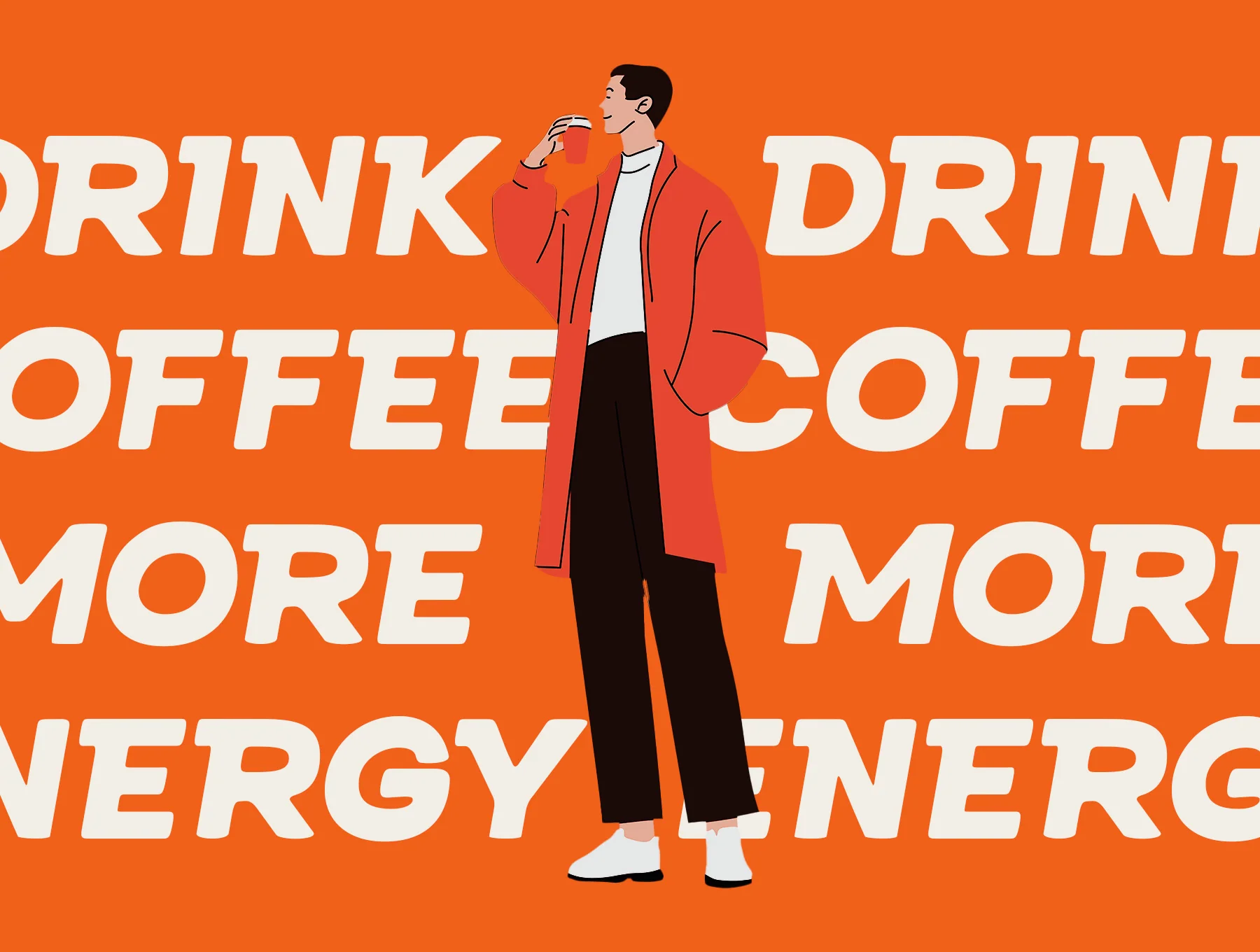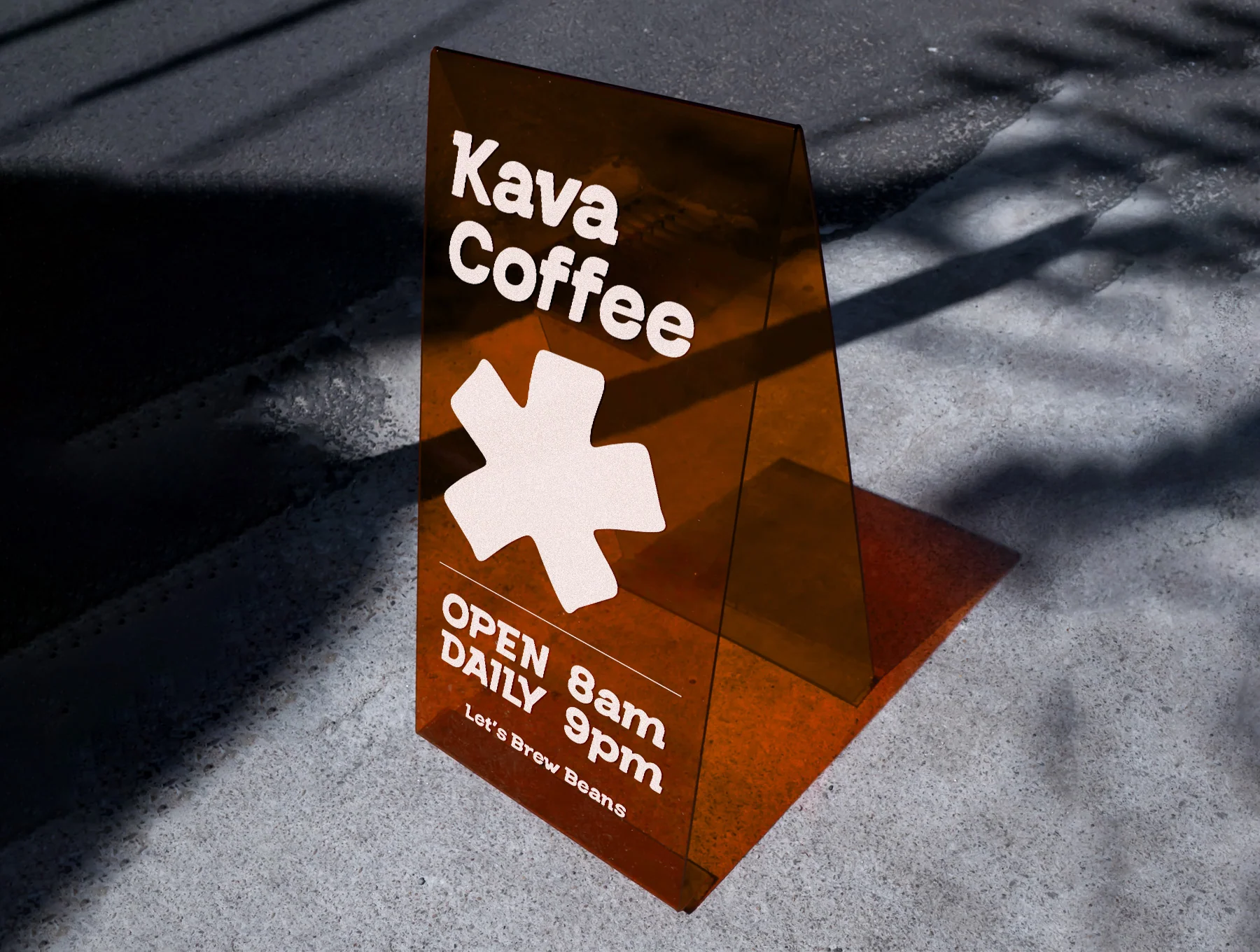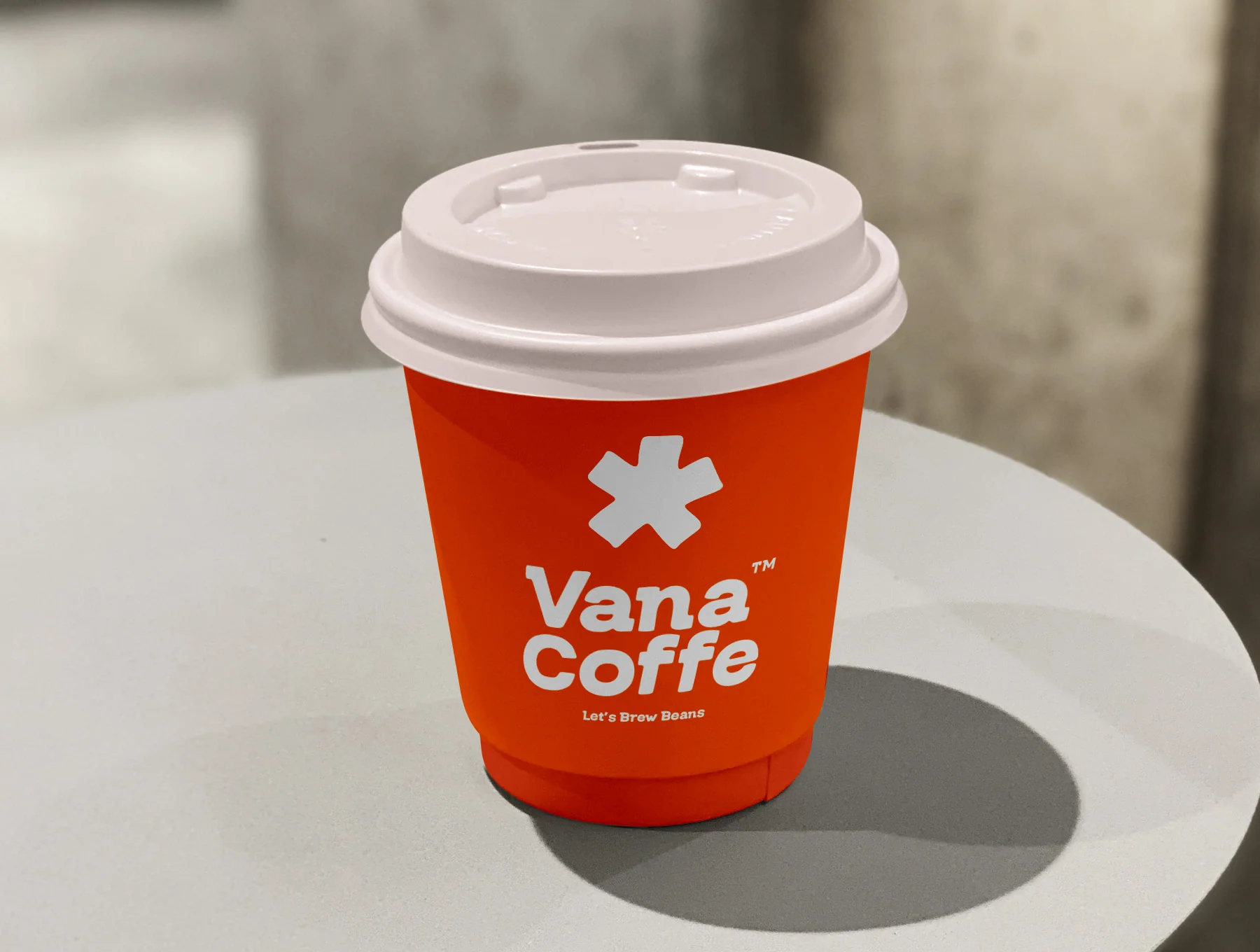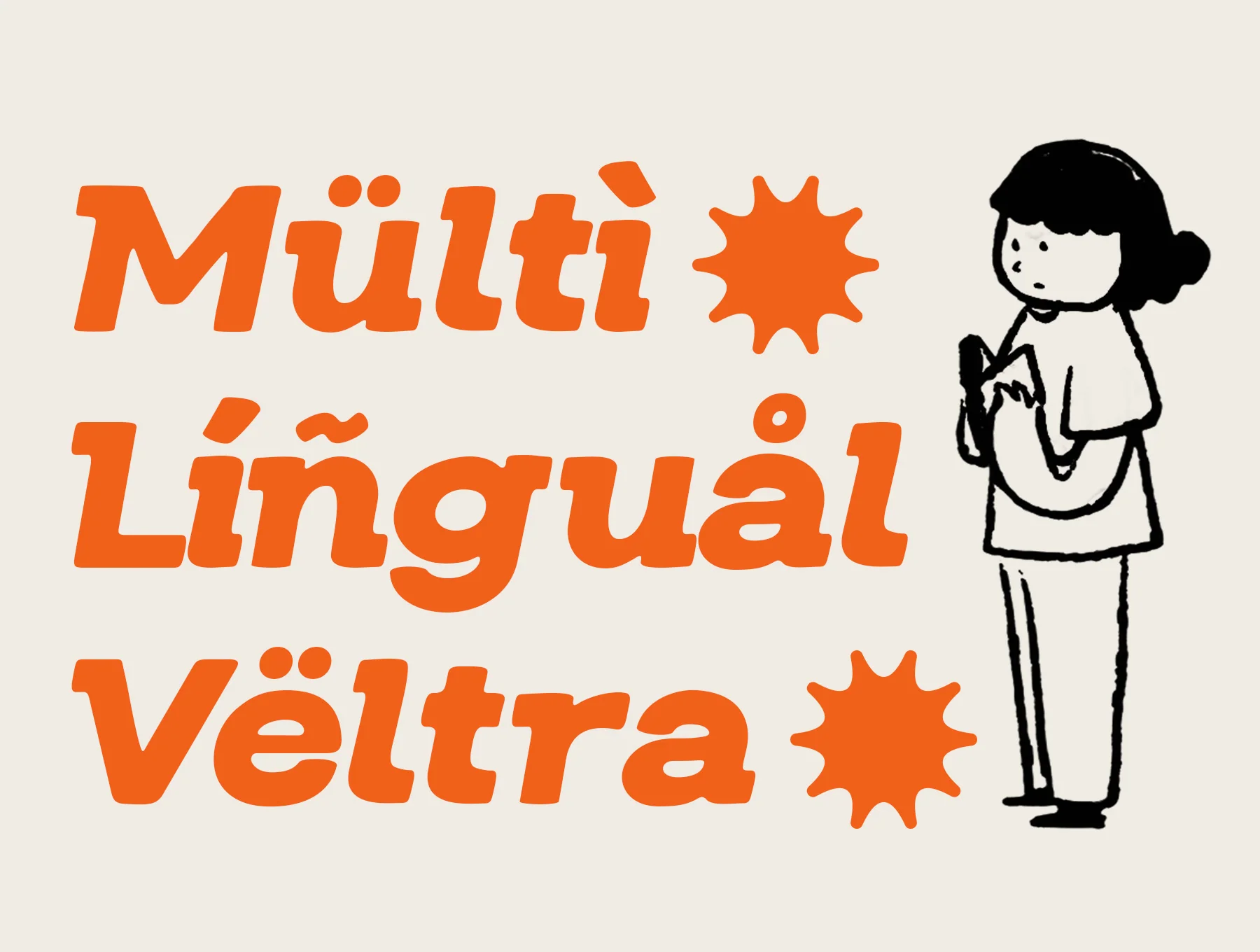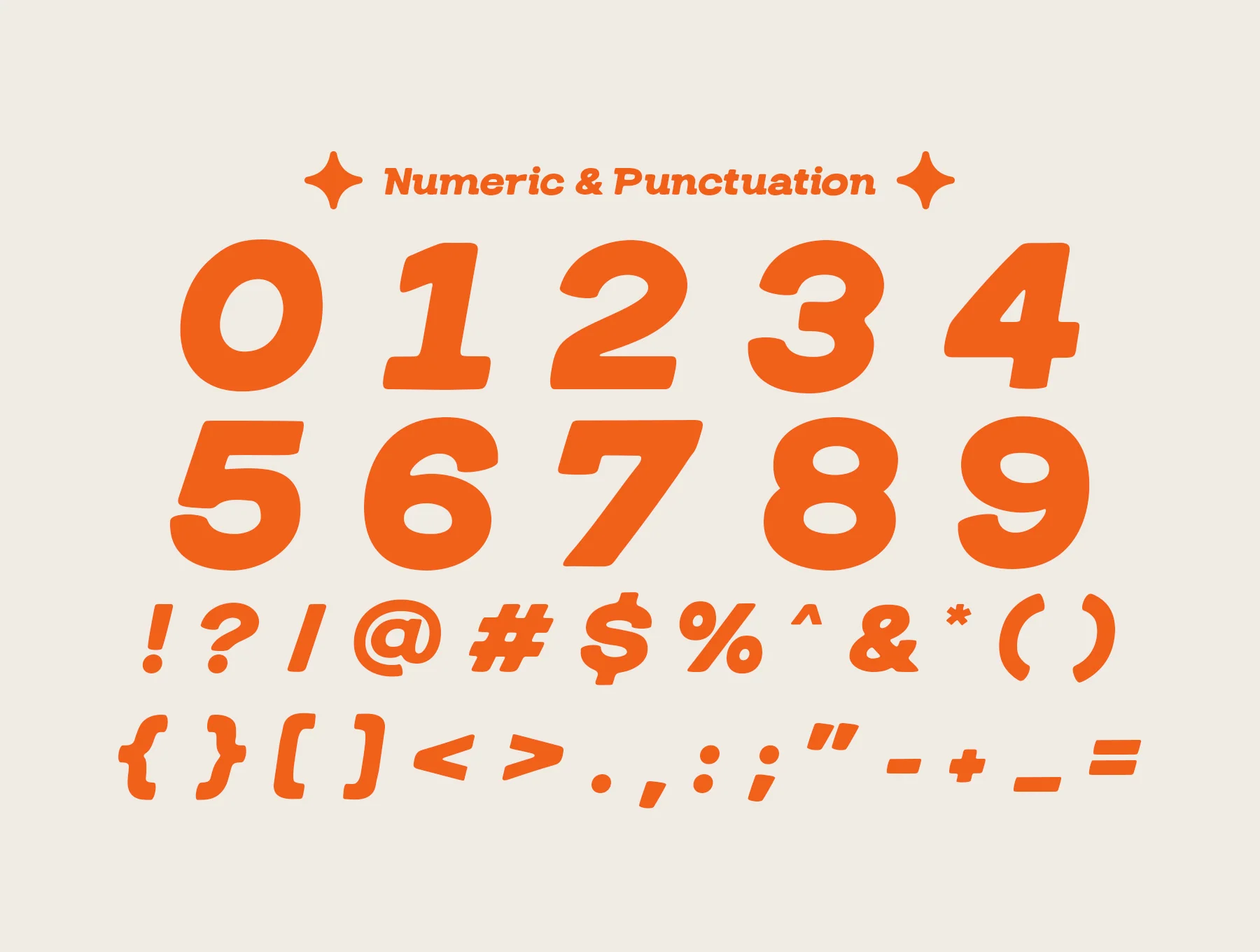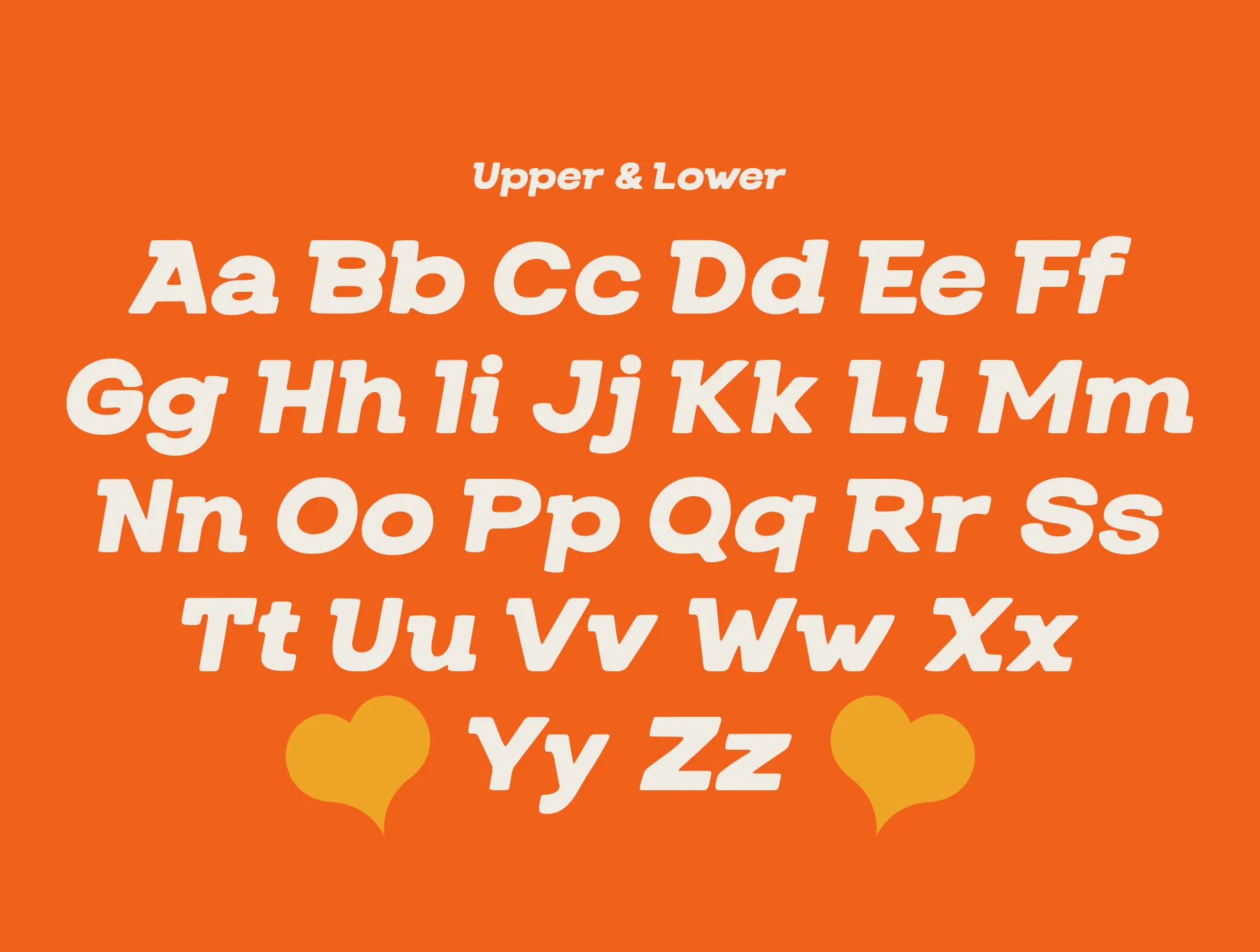
VELTRA FONT
Vintage Bold Italic Display
Veltra is a striking display typeface combining contemporary power with classic retro flair. Ideal for logos, posters, magazines, and digital projects seeking a strong, assured style. Includes uppercase, lowercase, numerals, symbols, multilingual support, plus OTF and TTF files.